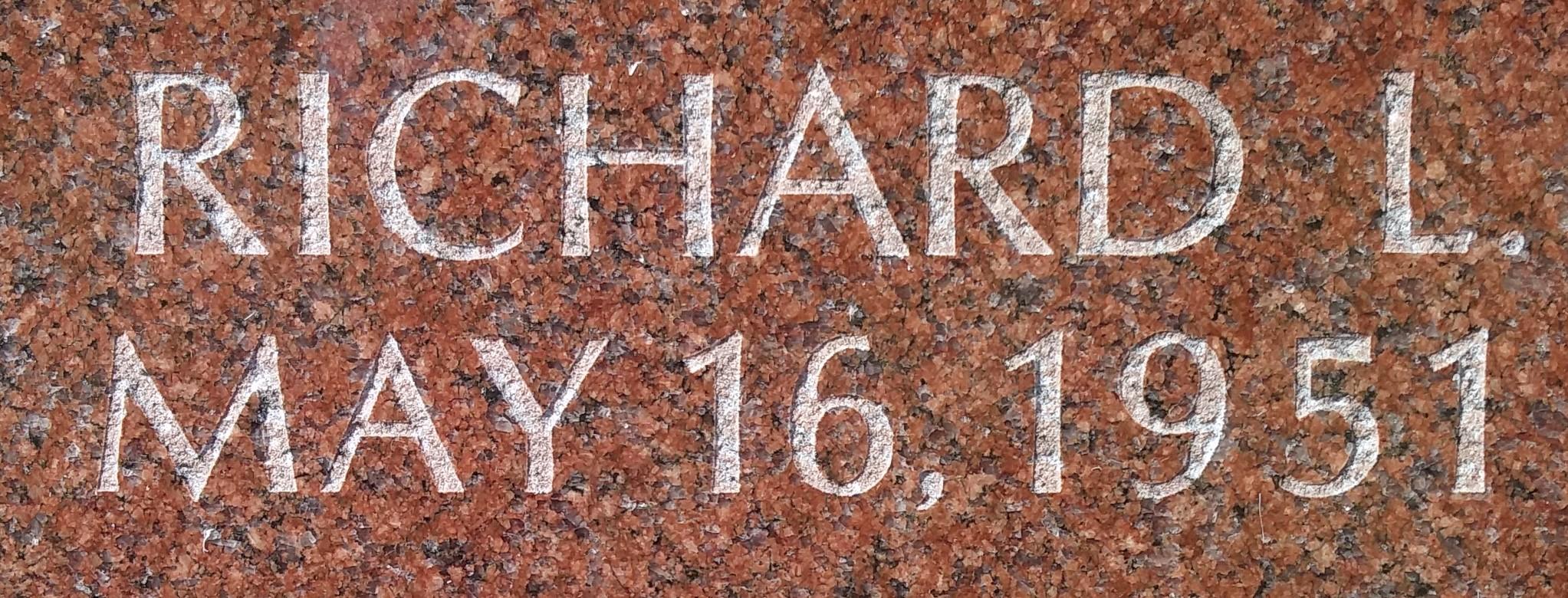
looks really close to modified roman sans but m is different and the flags on the 1. probably more but that’s what i noticed quickly.
Hi Ben, this font is Optima, but the comma leads me to believe it is a proprietary version used in some monument software. The comma for all commercially available versions is longer with no curl. It also looks like the bottom stroke of the ‘L’ has a slant, which is not typical.